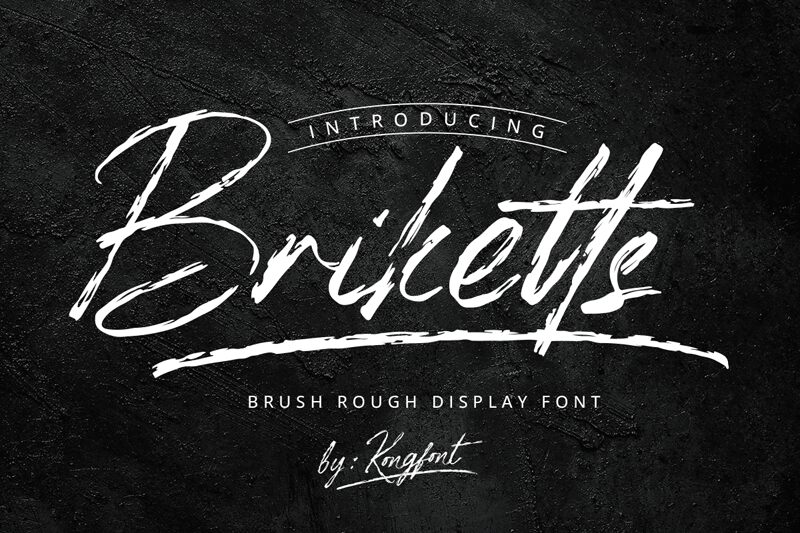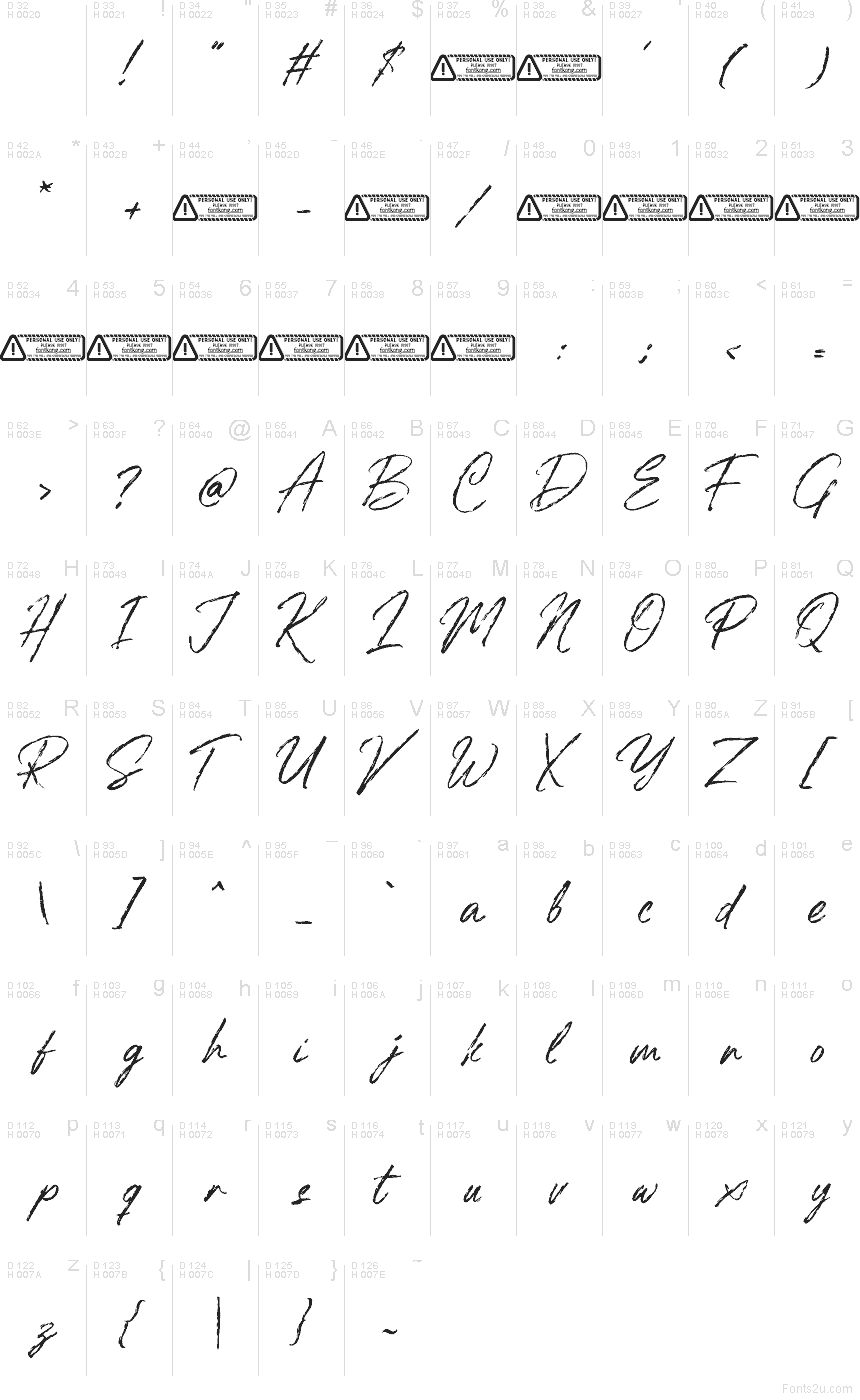
Briketts font by Kong Font is a free brush script typeface that feels like it was dragged straight from a paint-splattered studio wall. Jagged strokes, rough edges, and streaky ink textures give every word a raw, hand-scrawled intensity. The letters connect with a loose, slightly wild rhythm, so lines of text look spontaneous and energetic rather than neat or polished.
Using Briketts, you get the grit and drama you want for posters, album covers, streetwear branding, edgy social graphics, packaging, and bold headline quotes. This free font shines when it’s set big, letting the scratchy details really show; pair it with a clean sans serif for body text to keep layouts readable while Briketts does the shouting.